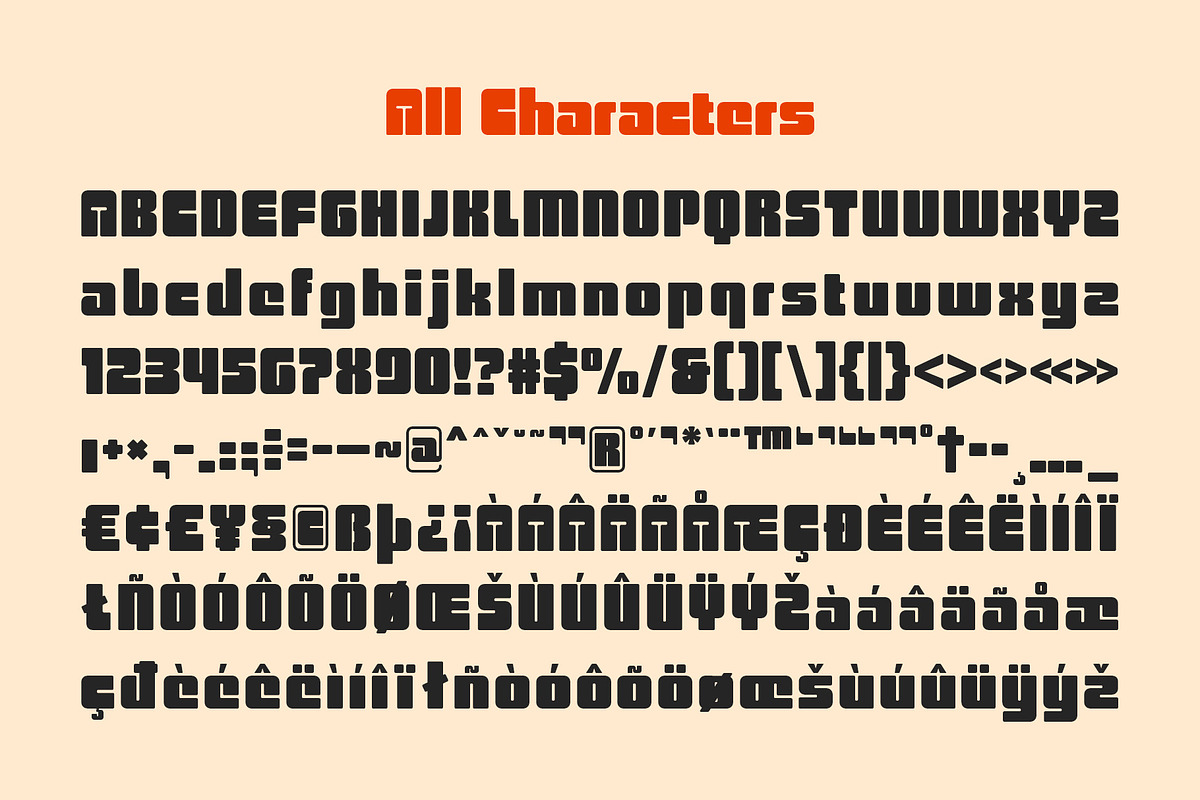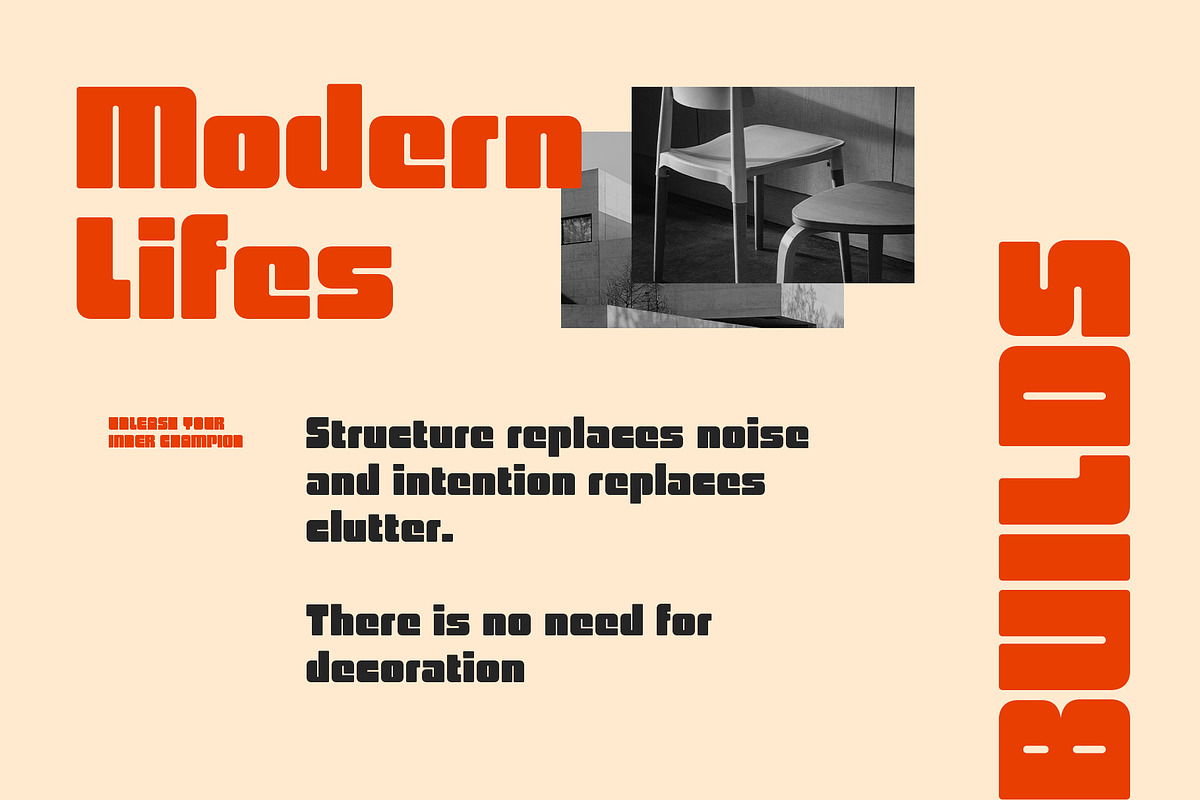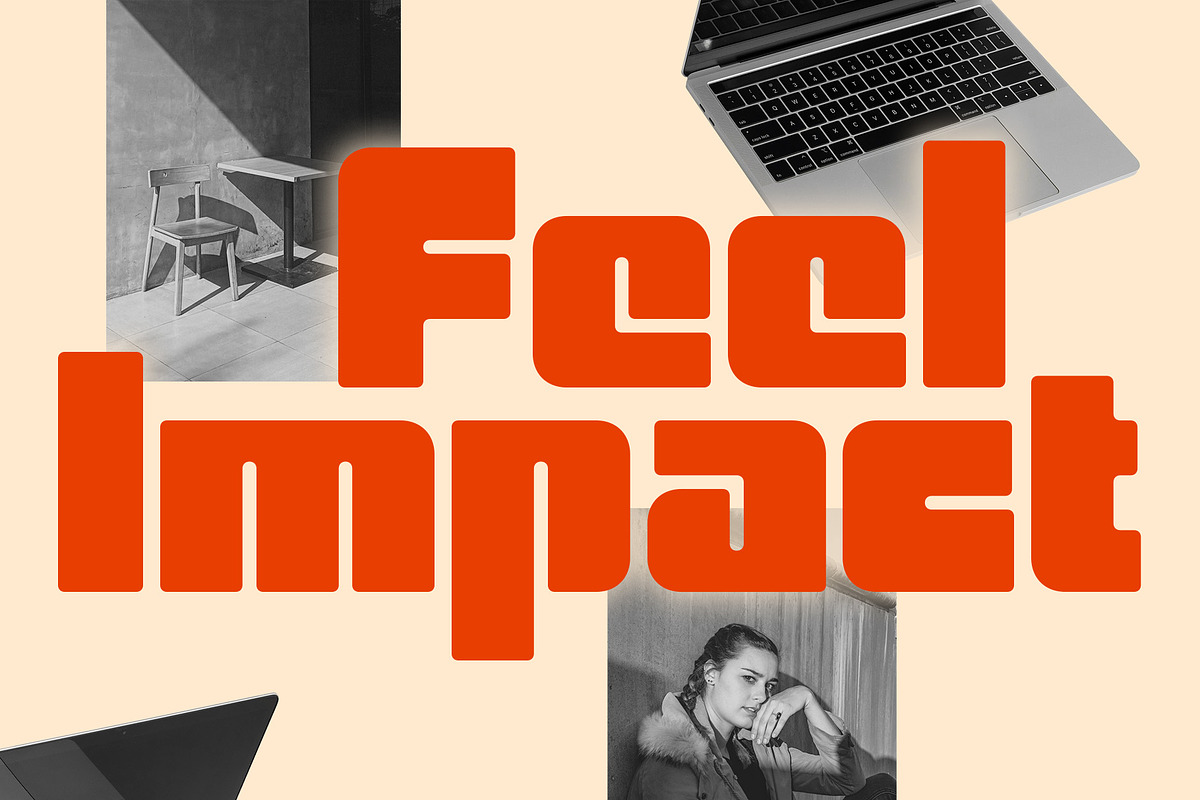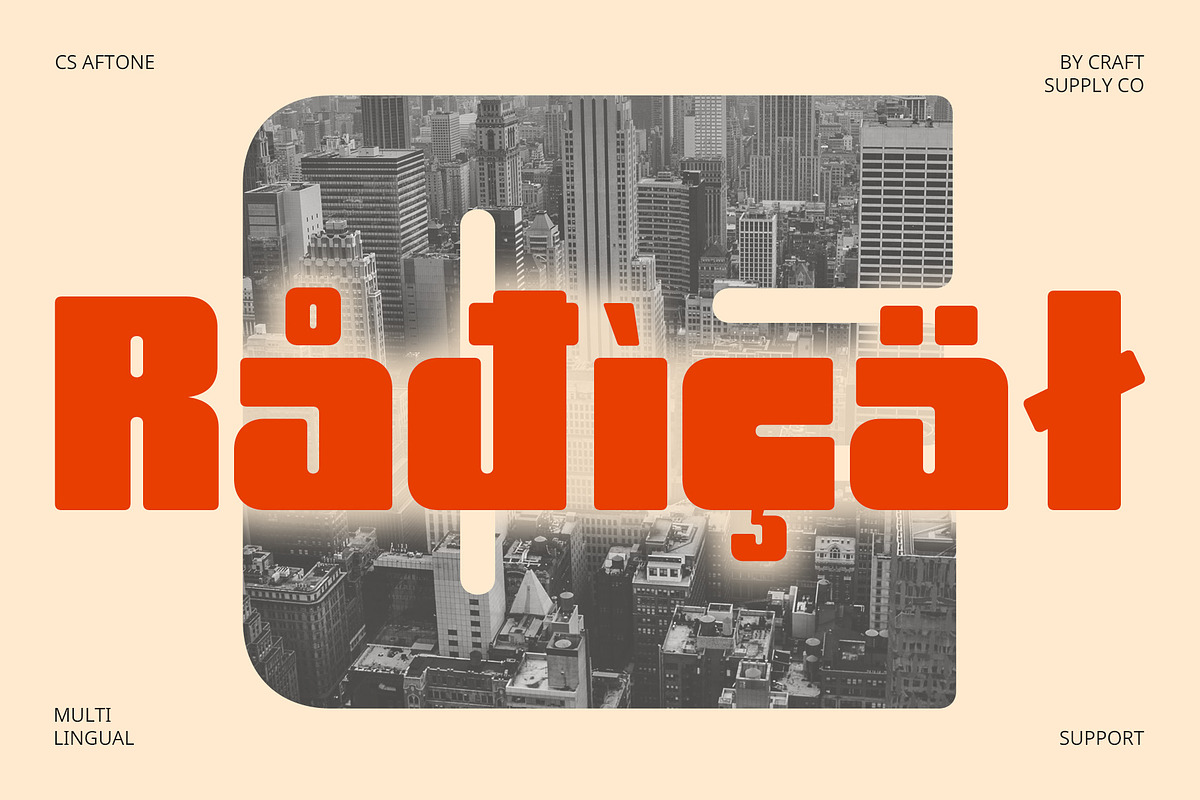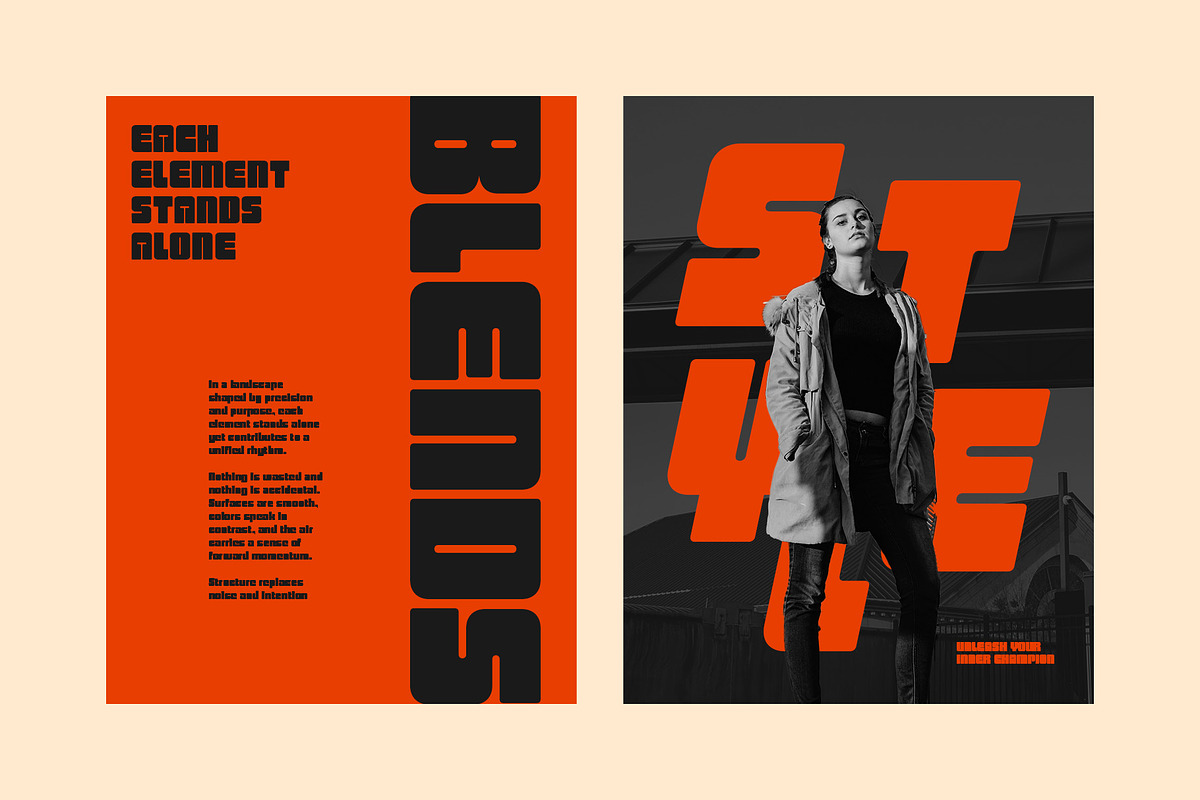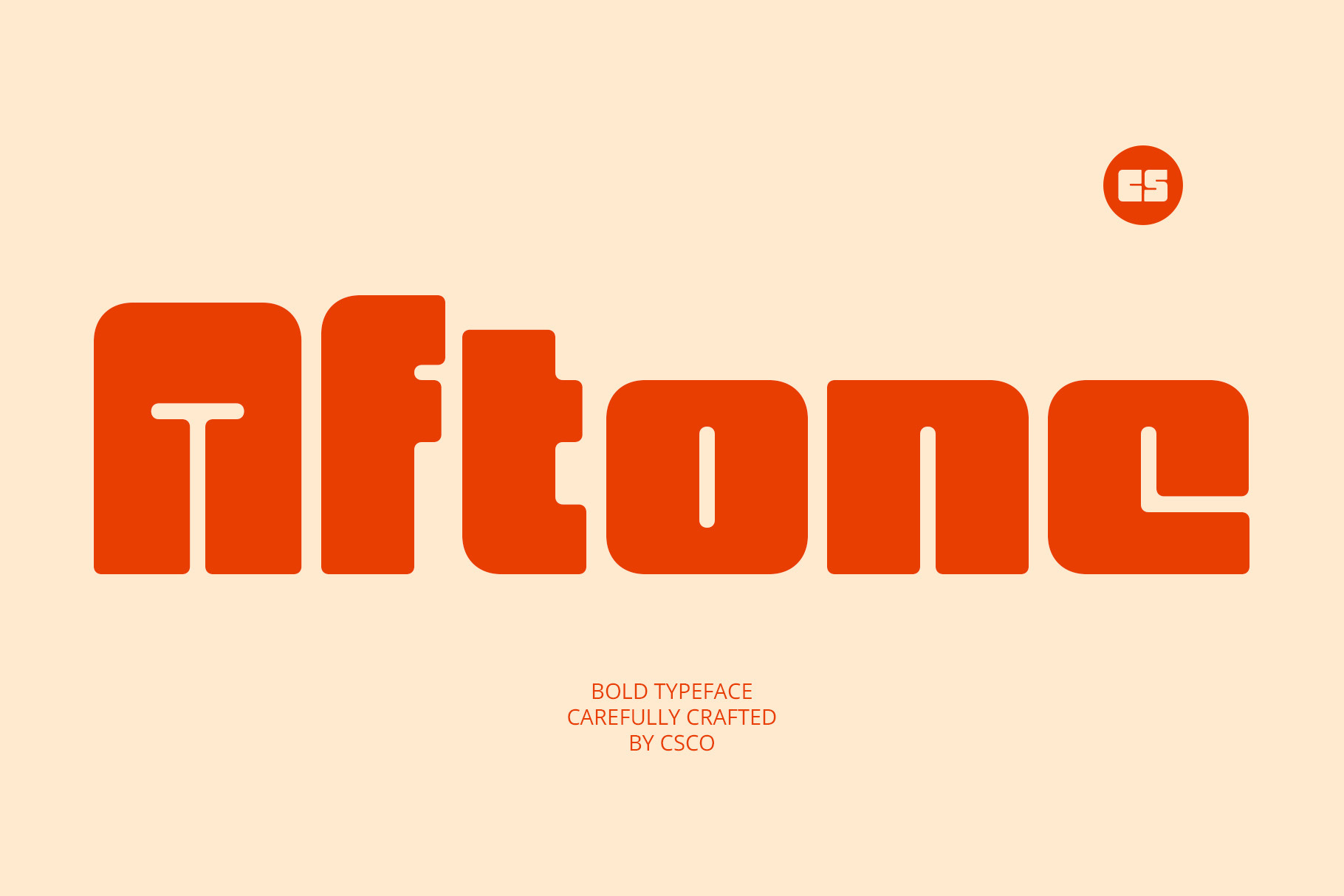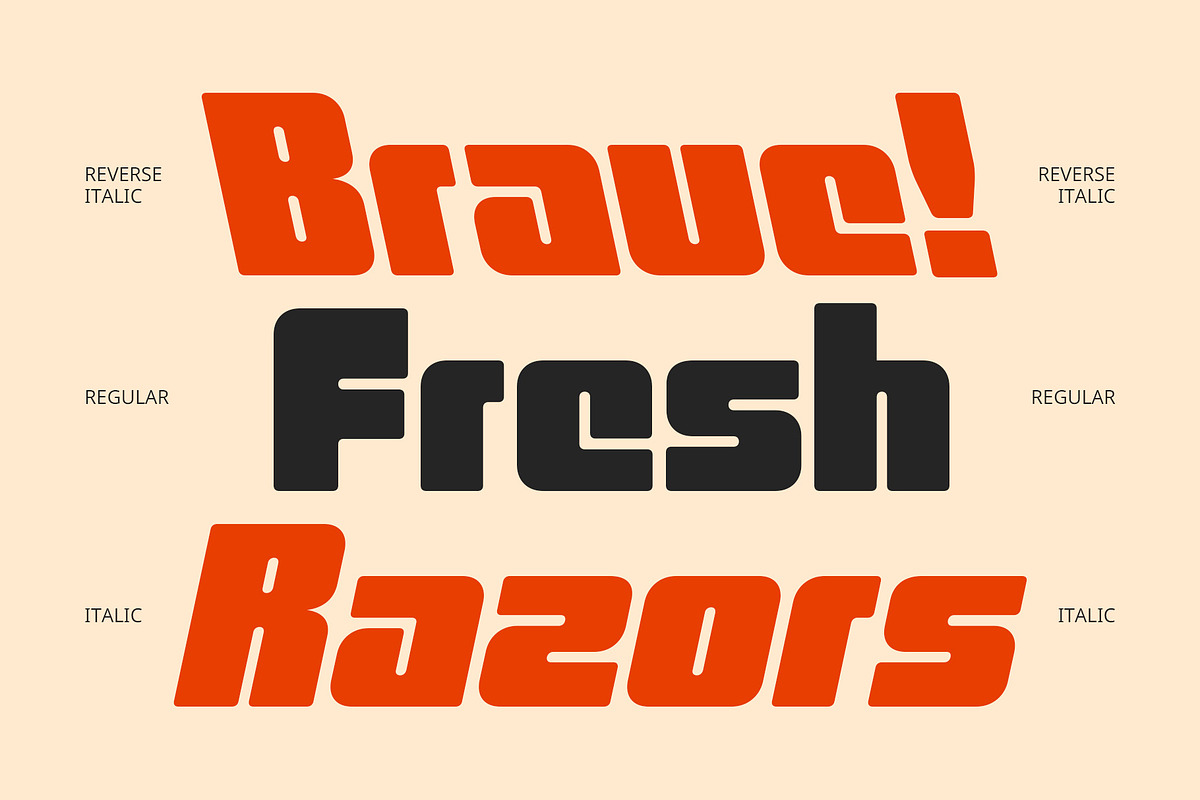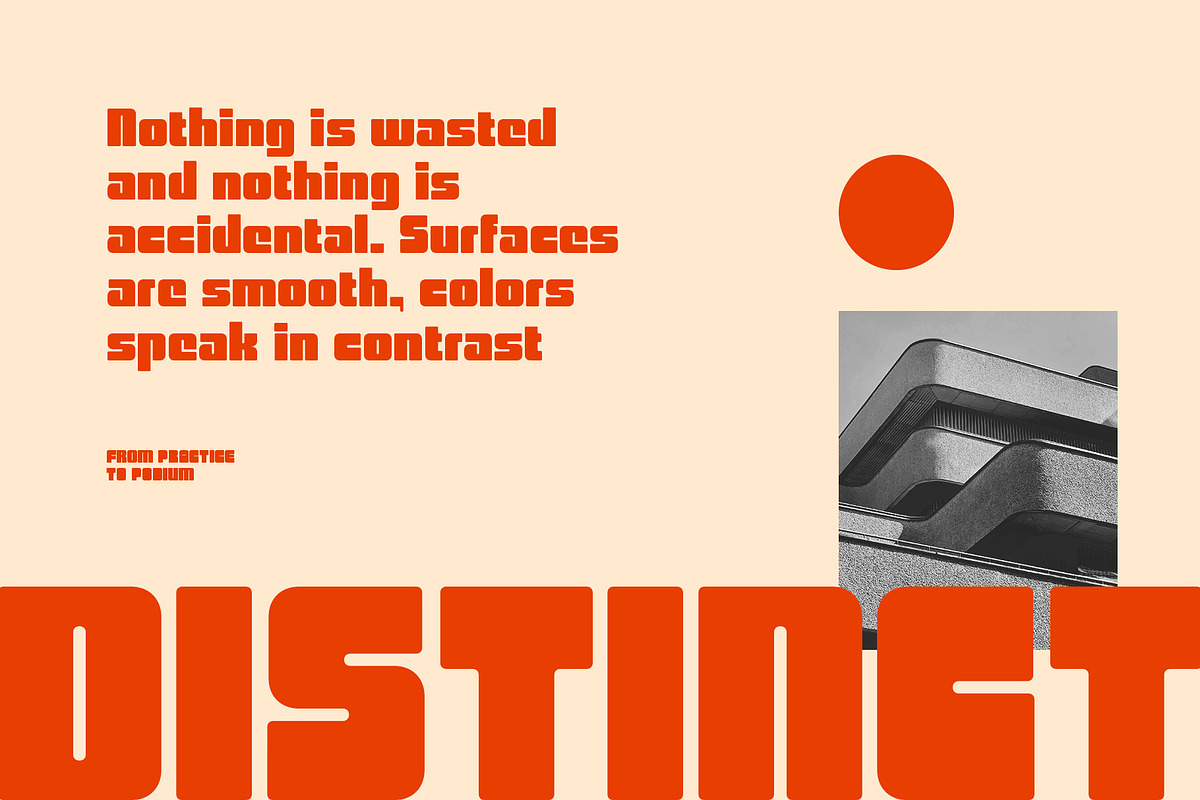
CS Aftone – Bold Font
CS Aftone – Bold Font with Modern Confidence
Strong and Stylish Sans Serif Form CS Aftone is a bold sans serif font crafted with a clean, solid structure and modern design language. Its letterforms are built for impact—delivering clarity, strength, and balance in every character. The bold weight creates a striking visual hierarchy, making it perfect for attention-grabbing headlines and high-impact layouts.
Minimalist Aesthetic with a Confident Edge Blending contemporary minimalism with bold proportions, CS Aftone presents a professional yet approachable presence. The font avoids unnecessary detail, focusing on simplicity and form, resulting in a design that feels sleek, fresh, and confidently modern—ideal for tech, corporate, or editorial use.
Balanced Proportions for Visual Clarity Every glyph in CS Aftone has been carefully shaped for optimal balance and readability. Its even spacing and geometric construction offer a consistent and polished look across sizes, whether on digital interfaces, print materials, or signage.
Versatile for Bold Branding and Beyond From branding and posters to websites, apps, and product design, CS Aftone fits seamlessly into a variety of design applications. Its modern style and bold presence help communicate strength, clarity, and professionalism—perfect for brands looking to make a lasting impression.
- CS Aftone Regular
- CS Aftone Italic
- CS Aftone Reverse Italic